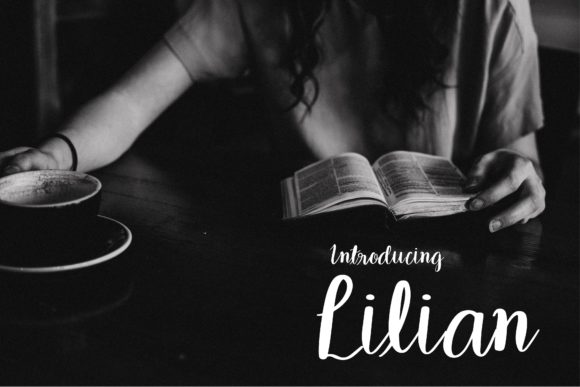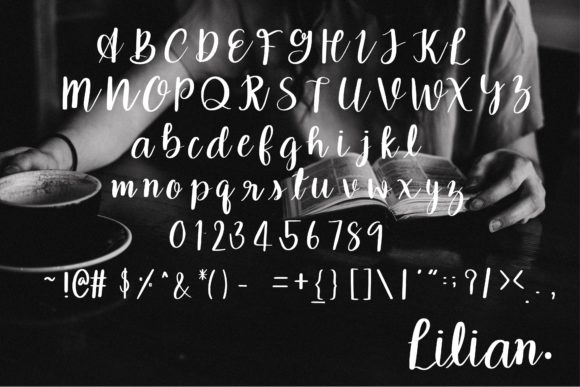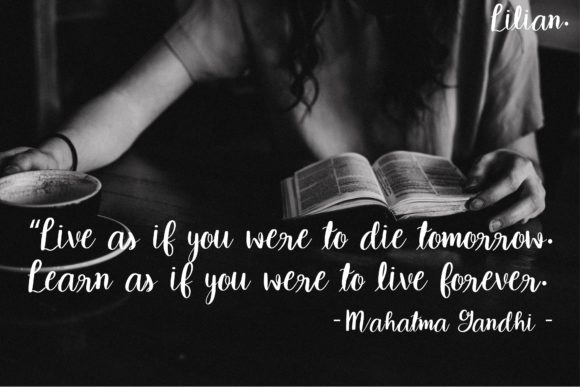
Lilian Font
About Lilian Font
Lilian is a cute and casual handwritten font with an incredibly friendly feel. It will elevate a wide range of design projects to the highest level, be it branding, headings, wedding designs, invitations, signatures, logos, labels, and much more!